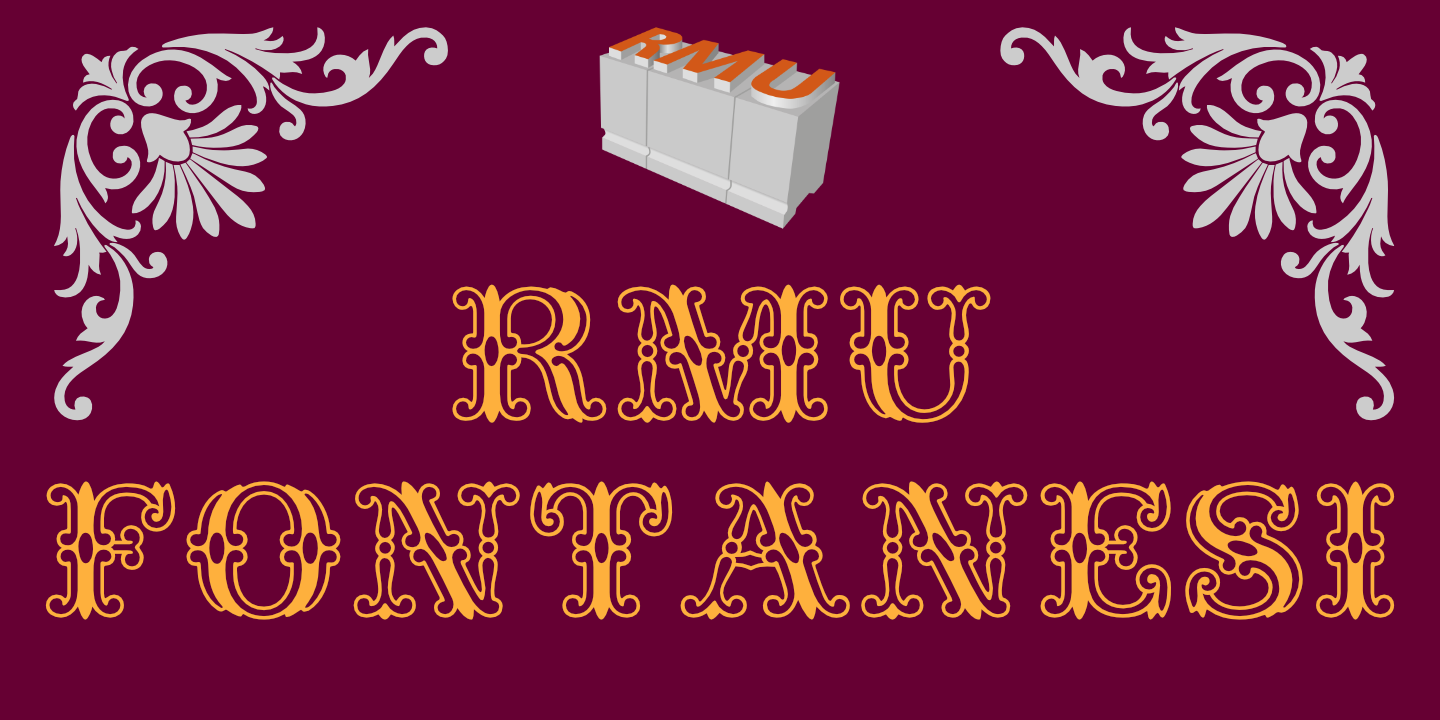
RMU Fontanesi Font Free Download is a unique and expressive typeface that blends creativity with functionality. Its artistic strokes and distinctive design make it perfect for creative branding, posters, editorial projects, and digital artwork that demands personality and style.
Whether you’re crafting eye-catching headlines, imaginative packaging, or standout social media visuals, RMU Fontanesi Font Free Download adds a dynamic and original touch to your typography. It balances flair with readability, making it versatile for various design needs.